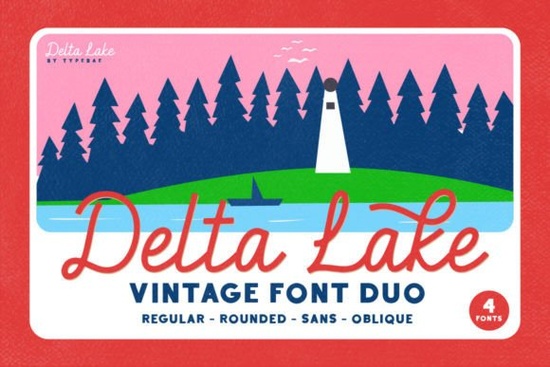
If you’re looking for a handwritten script that feels both personal and polished, Delta Lake Font might be exactly what your next project needs. It’s not overly ornate or hard to read instead, it strikes a nice balance with elegant tails on each letter and smooth ligatures that connect certain characters naturally. Whether you’re designing wedding invites, branding materials, or print-on-demand products, this font adds warmth without sacrificing clarity.
What makes Delta Lake stand out is how thoughtfully the letterforms connect. The ligatures aren’t just decorative they’re functional, helping words like “love,” “always,” or “forever” flow more like real handwriting. That’s especially helpful if you’re working on something meant to feel intimate or handmade, like greeting cards, packaging labels, or social media quotes.
Who should use Delta Lake Font?
This font works well for:
- Small business owners creating logos or product tags with a handcrafted vibe.
- Crafters and DIYers making vinyl decals, embroidery patterns, or scrapbook titles.
- Print-on-demand sellers designing mugs, shirts, or tote bags with personalized messages.
- Designers who need an authentic brush script that doesn’t look stiff or robotic.
It’s also surprisingly versatile. Pair it with a clean sans-serif for contrast, or let it shine alone in minimalist layouts. You don’t need advanced design skills to make it look good the natural rhythm of the letters does most of the work for you.
How does it compare to other handwritten fonts?
If you’ve used Country Last Night Duo, you’ll notice Delta Lake has a slightly more refined tail structure less rustic, more modern-calligraphy. For those who prefer bold strokes, RoFlag Stencil offers a completely different texture, while Welcome leans into display-style impact rather than script elegance.
And if you’re nostalgic for vintage signage or retro diner aesthetics, Nostalgic Words might scratch that itch better. Meanwhile, holiday-focused creators often reach for Christmas Wedding when seasonal charm is the goal. Delta Lake sits comfortably between all these not too casual, not too formal, just right for everyday elegance.
Pro tip: Always test your chosen word combinations before finalizing a design. Some scripts look great in headlines but fall apart in longer sentences. With Delta Lake, you’ll find it holds up well even in short paragraphs thanks to those built-in ligatures keeping things fluid.
Any tips for getting the most out of this font?
- Use sparingly. Script fonts like this work best as accents headlines, logos, or single words. Avoid setting whole paragraphs unless readability isn’t your top priority.
- Adjust tracking slightly. Sometimes increasing letter spacing by 10–20 units helps the tails breathe and prevents crowding.
- Pair with neutral fonts. A simple sans-serif like Montserrat or Lato lets Delta Lake take center stage without visual competition.
- Try it in all caps. Surprisingly, many brush scripts lose their charm in uppercase but Delta Lake’s terminals still hold character, making it usable for monograms or bold statements.
One last thing: if you’re using this for client work, show them a few mockups first. Handwritten styles can feel “too casual” to some audiences but when paired correctly, Delta Lake brings personality without losing professionalism.
Before you commit, preview how your actual text looks using Creative Fabrica’s live typesetter. Type in your brand name, slogan, or key phrase to see how the ligatures behave. Not every combination triggers a connected glyph, but common pairs like “th,” “st,” or “fl” usually do and that’s where the magic happens.
Fonts like this don’t need hype. They just need to feel right and for many designers, Delta Lake hits that sweet spot between crafted and effortless.